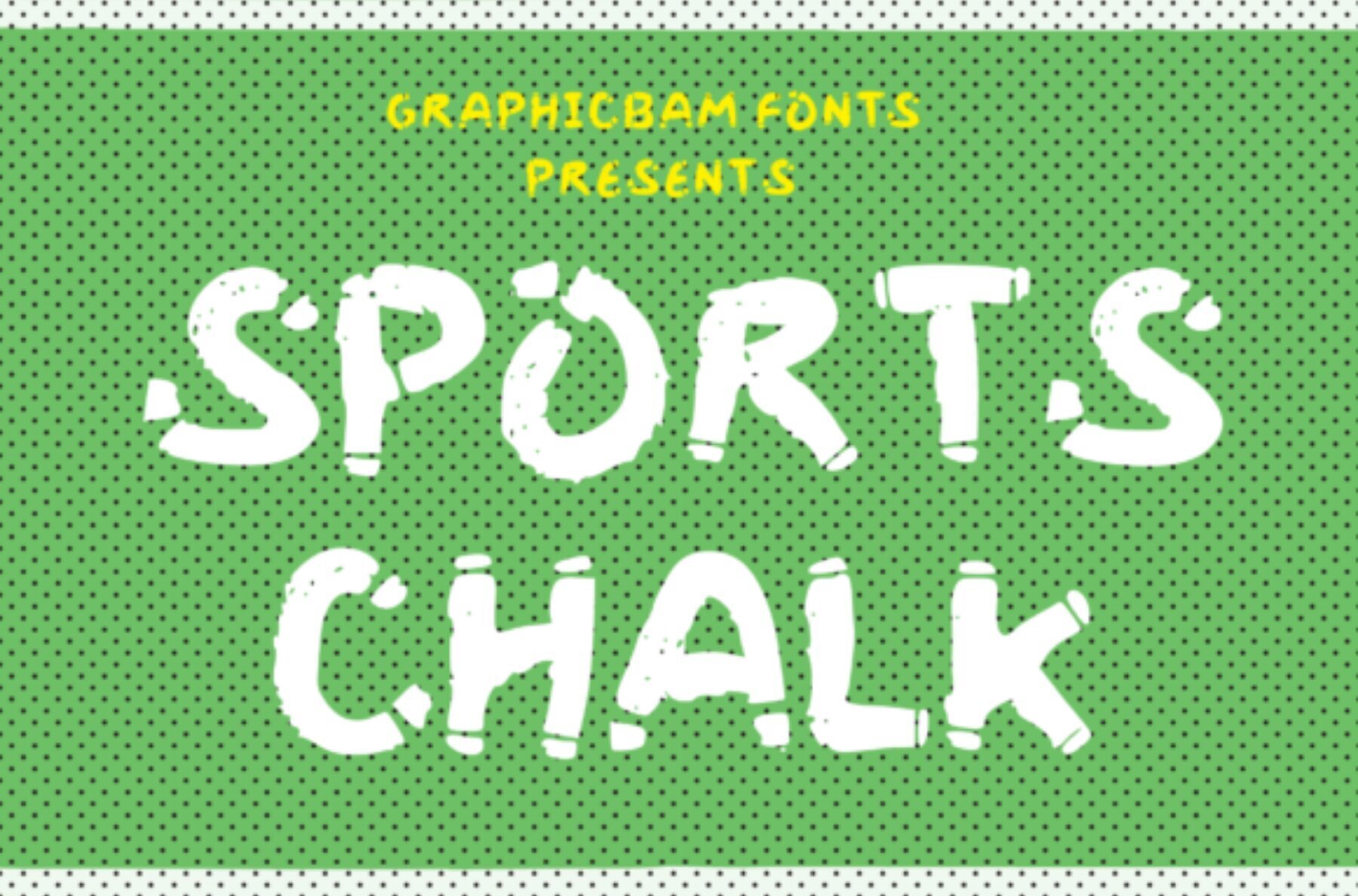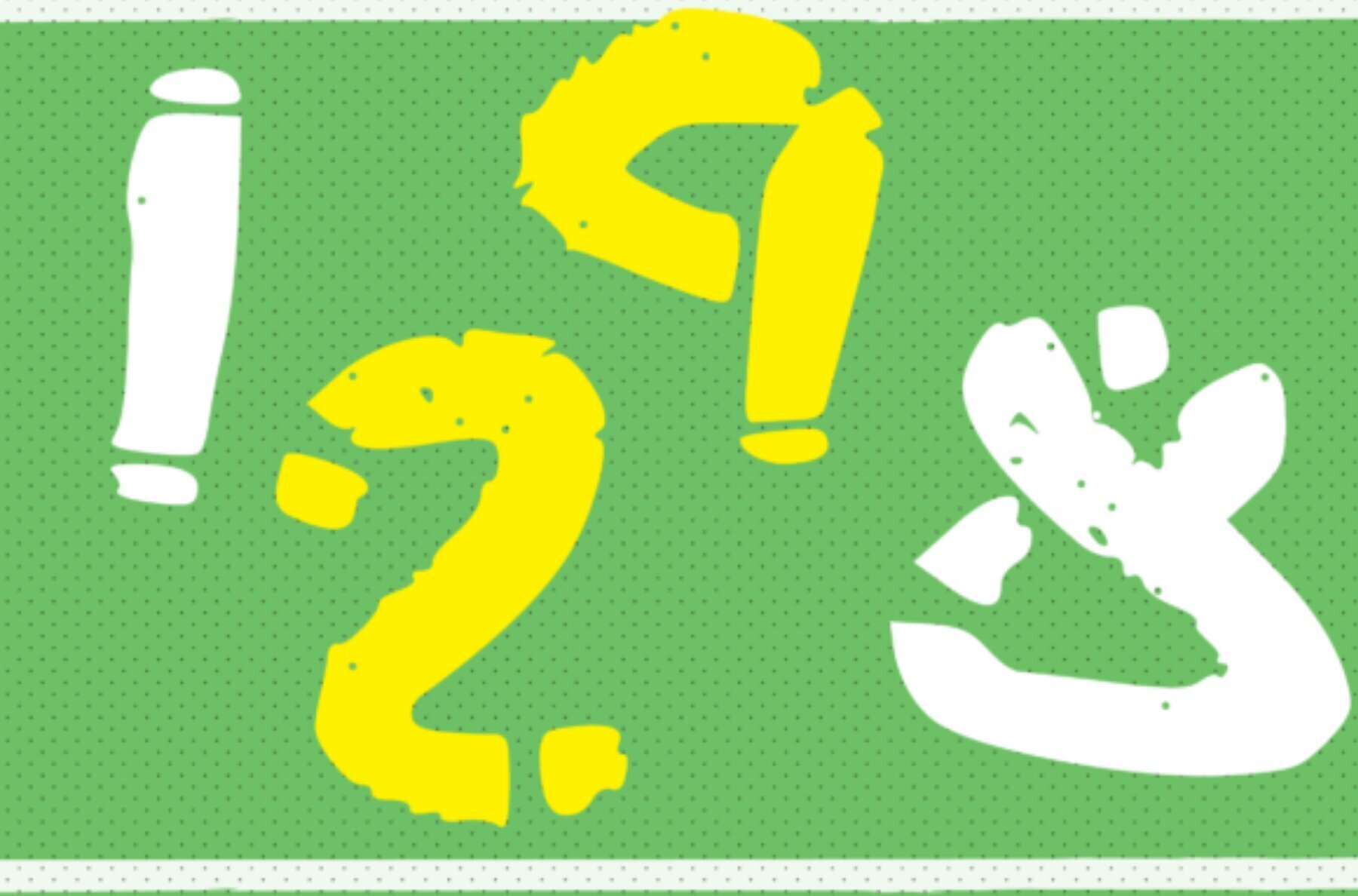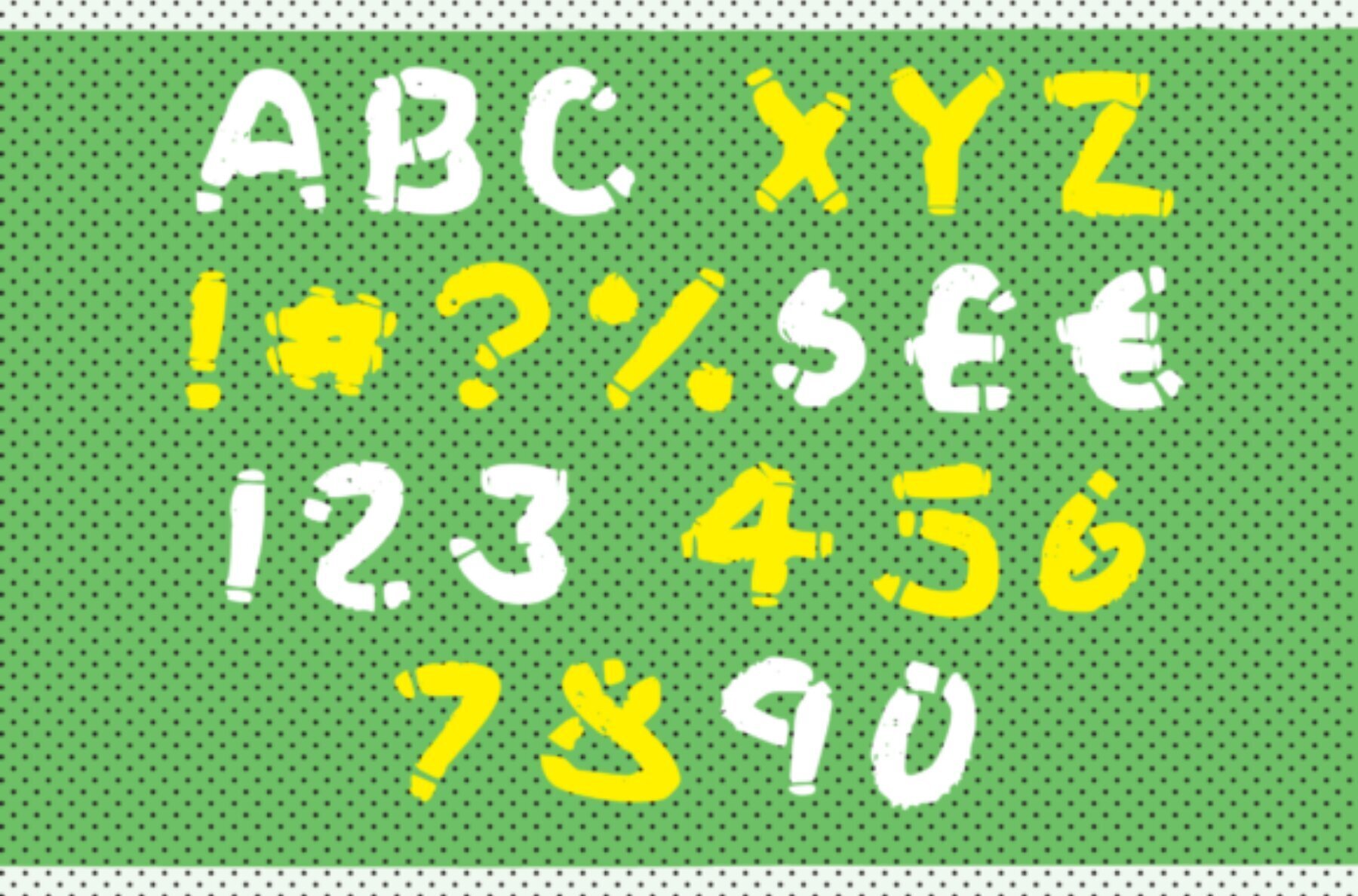
Sports Chalk Font
Sports Chalk
Unleash your creativity with Sports Chalk, the quintessential casual display font that brings a playful, sporty vibe to your designs. Boasting a chalk-style aesthetic, this font is perfect for adding an engaging and approachable feel to any project.Sports Chalk: The Ultimate Casual Display Font